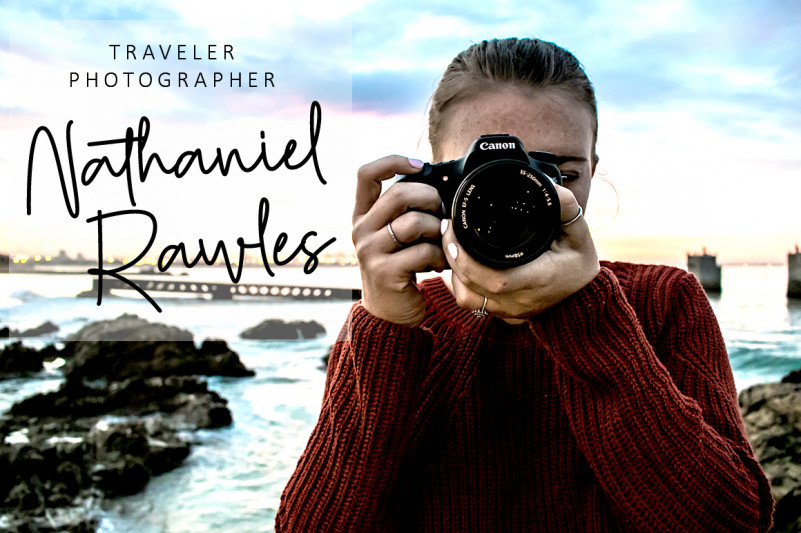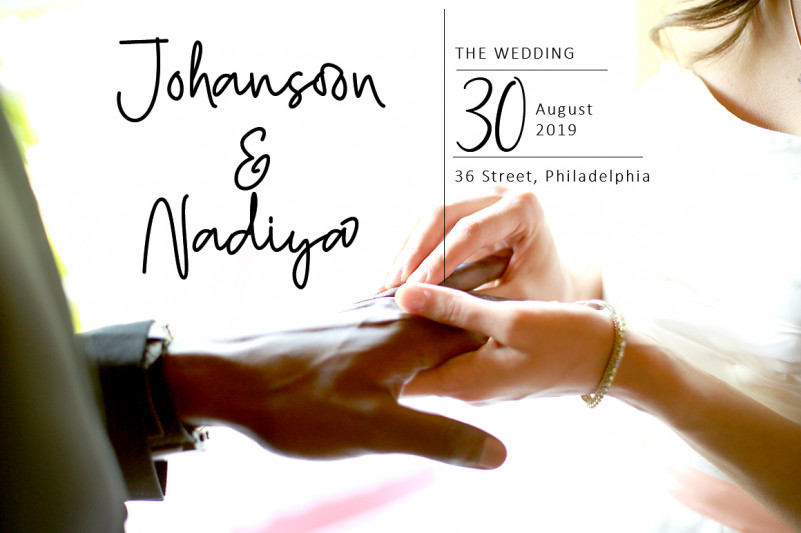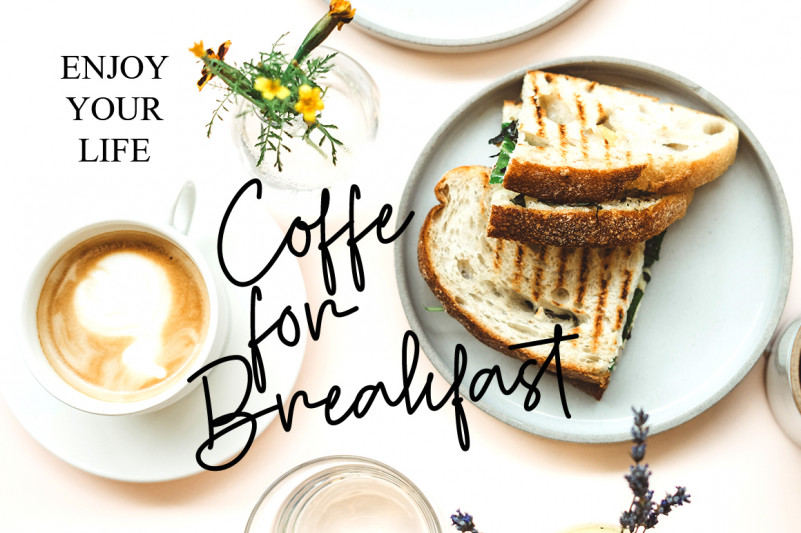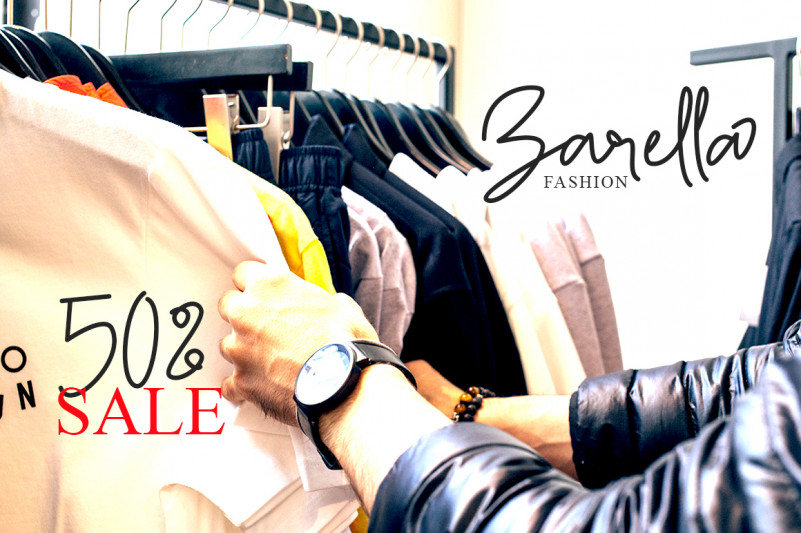
Callien Pooh Signature Font
Callien Pooh is a signature font, with sweet touches and beautiful curves on each letter. This font is great for your next creative project.